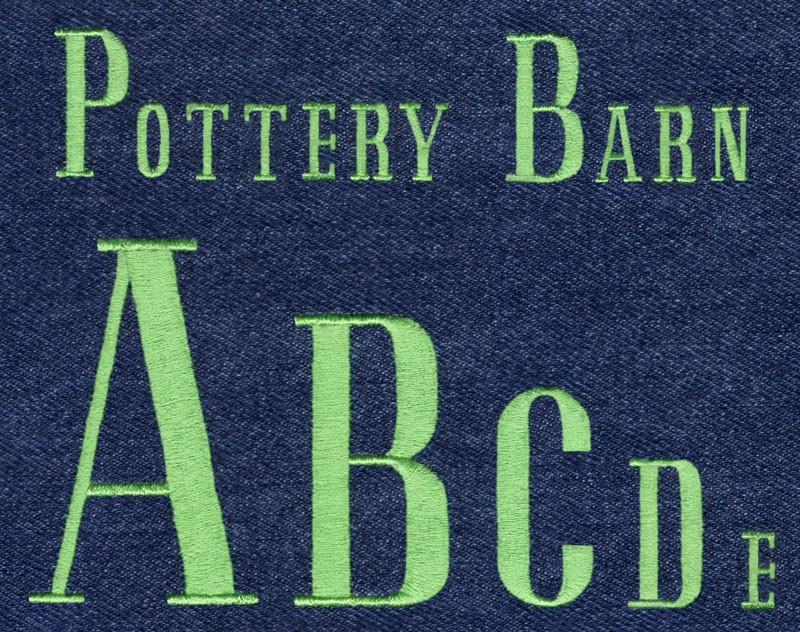
513 Pottery Barn Satin Font
Pottery Barn Satin Font comes in 0.5", 1.0", 1.5", 2.0" and 2.5" heights based on t he capital "A". All sizes included for one price. Features uppercase letters, numbers and four punctuation marks as shown in character chart above. Finished in standard satin stitch. PLEASE NOTE:This font has narrow columns (particularly the serifs) that may not stitch as well on thin or stretchy fabric; especially in the smaller sizes. Always use the appropriate stabilizer for your project.